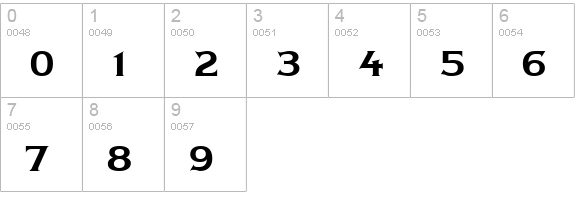
Lady Copra Wide Font Details
Lady Copra Wide is a distinctive, extended-width variant in the Lady typeface family \xE2\x80\x94 well suited to design and typography projects.
Lady Copra Wide font is a stunning display typeface that exudes elegance and sophistication. With its wide and bold letterforms, this font commands attention and makes a powerful statement. Whether used for headings, titles, or branding, Lady Copra Wide adds a touch of class and uniqueness to any design project. What sets Lady Copra Wide font apart is not just its impeccable style, but also its accessibility. It is freely available to download at FontsMarket.com, making it easily accessible to designers, creatives, and typography enthusiasts alike. This means that you can incorporate this beautiful font into your projects without any barriers, allowing your creativity to soar. The smooth curves and sharp edges of Lady Copra Wide font create a harmonious balance that catches the eye and captivates the viewer. Its generous spacing ensures excellent legibility, even at smaller sizes, making it versatile for various design applications. Lady Copra Wide font is a perfect choice for fashion magazines, luxury branding, invitations, posters, and any project that calls for a touch of sophistication. Its timeless appeal and modern sensibility make it suitable for both digital and print media. Elevate your designs with the elegance and style of Lady Copra Wide font. Download it for free at FontsMarket.com and let your creativity shine.